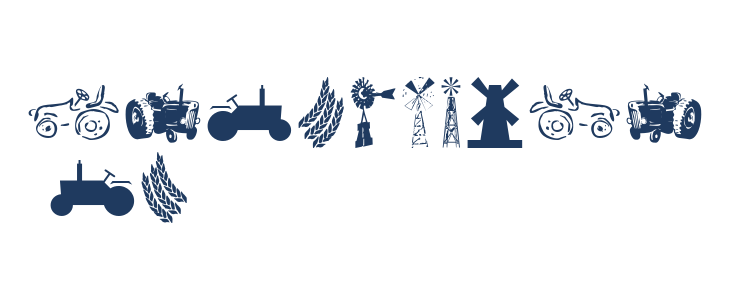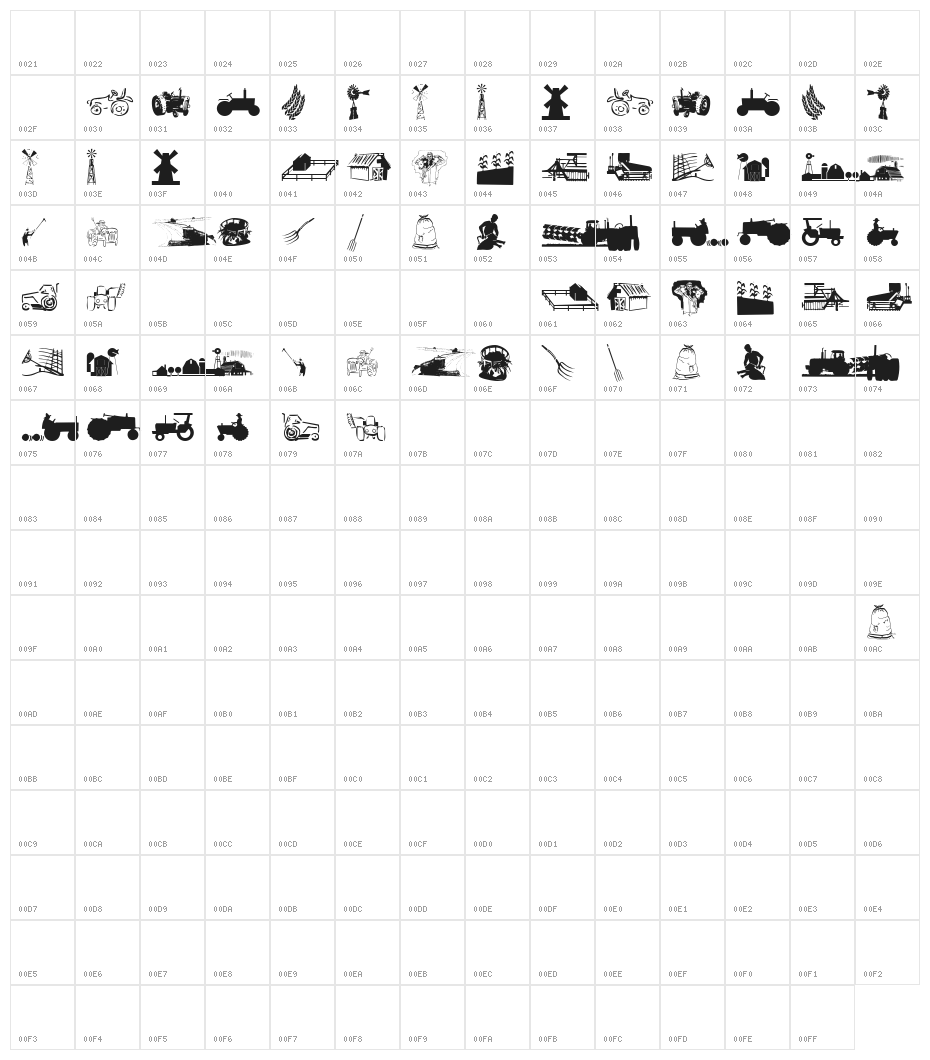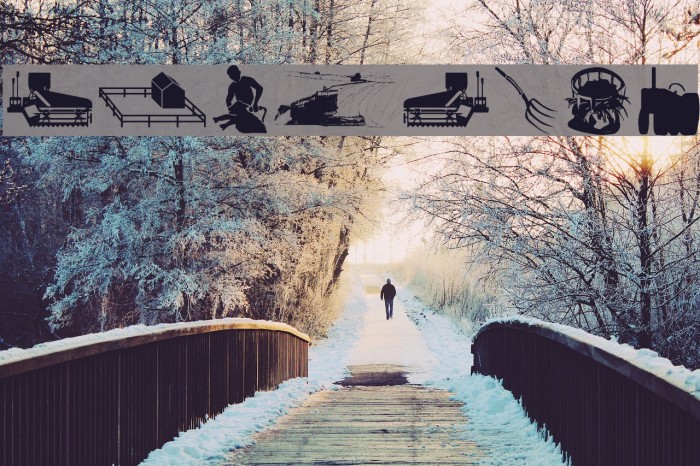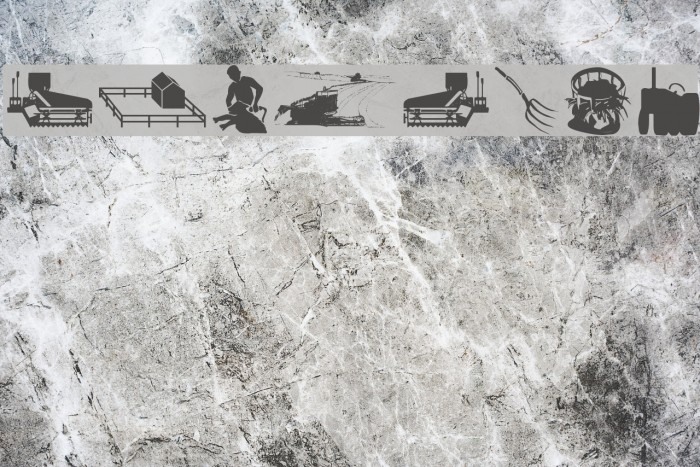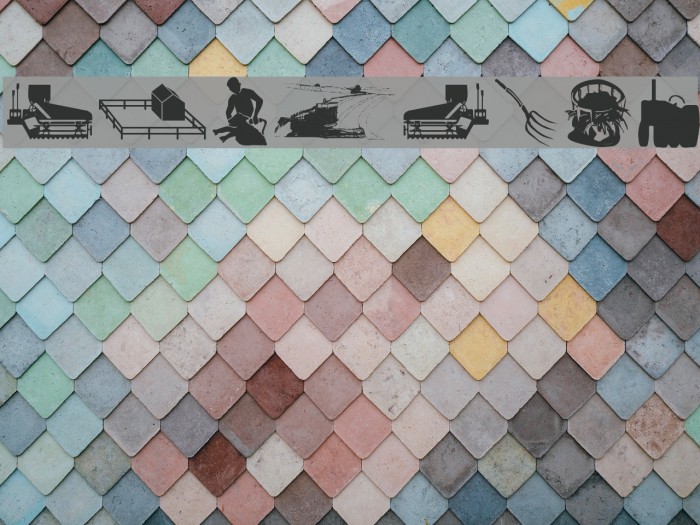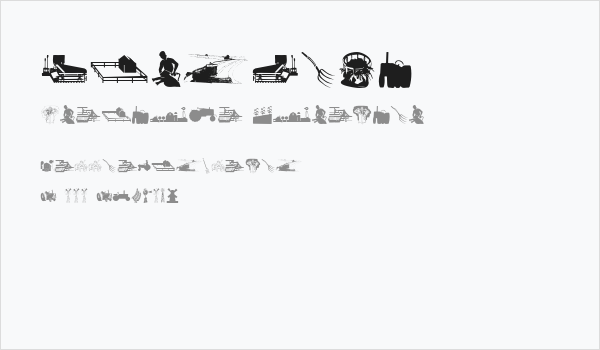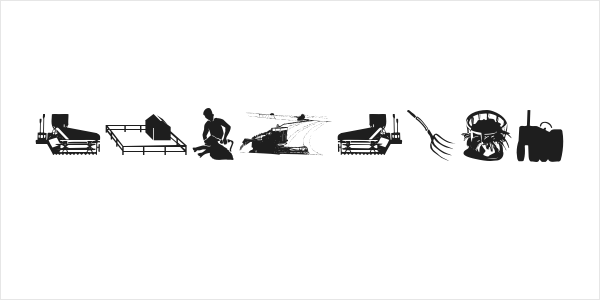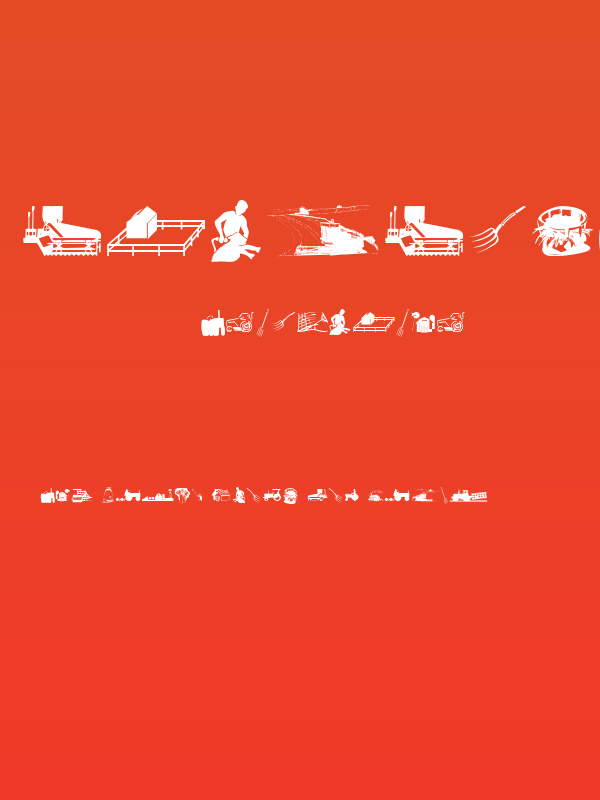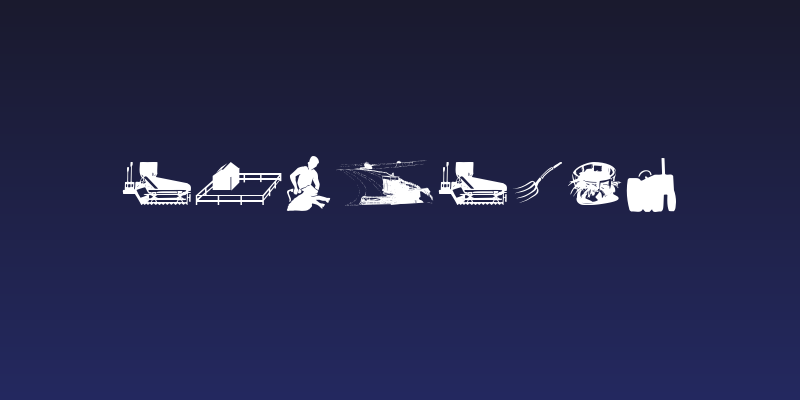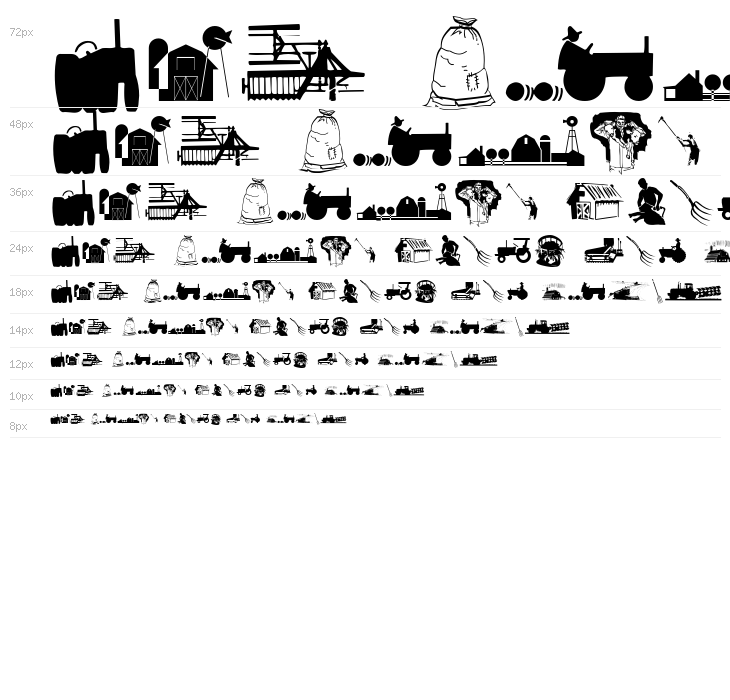
Farmfont Font
Farmfont Description
This is a decorative font featuring a variety of farm-themed illustrations. Each character is represented by a unique farm-related image, such as barns, tractors, windmills, and other agricultural elements. The style is playful and illustrative, making it ideal for projects that require a rustic or countryside aesthetic. The images are detailed and capture the essence of farm life, providing a charming and whimsical touch to any design.
Proposed ProjectsThis font is perfect for children's books, farm-themed event invitations, educational materials about agriculture, or any design project that aims to evoke a rural or pastoral feel.